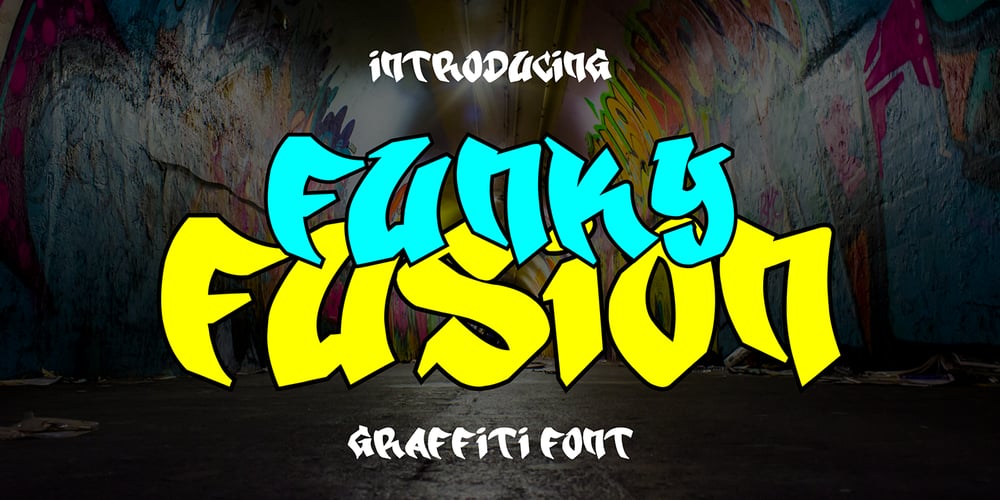
Funky Fusion Graffiti Font Family was designed by Sipanji and published by Sipanji21. Funky Fusion Graffiti contains 1 styles and family package options. Funky Fusion is a graffiti font with sharp edges, making it a perfect choice for various street-themed projects. With its funky and dynamic style, this font adds an edgy and urban vibe to your designs. The sharp edges give it a bold and eye-catching look, ensuring your typography stands out with a distinct and rebellious flair. Bring a touch of street attitude to your projects with the Funky Fusion font.